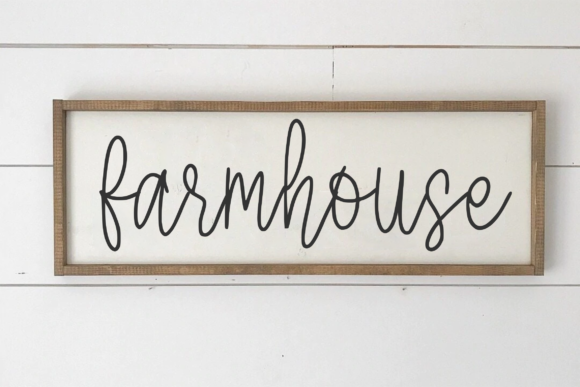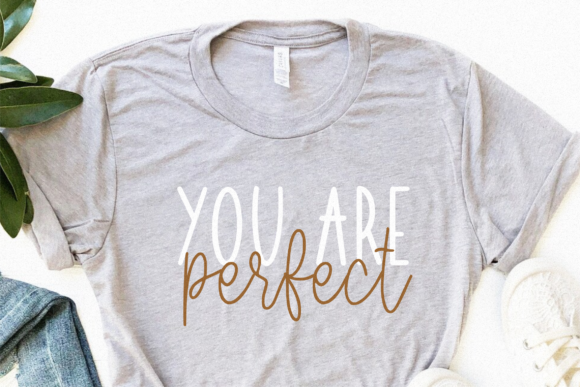
Berryline Font
db-ku.com - Script & Handwritten -- Berryline is a sweet and friendly handwritten font. Its natural and unique style makes it incredibly fitting to a large pool of designs. The only limit is your imagination!